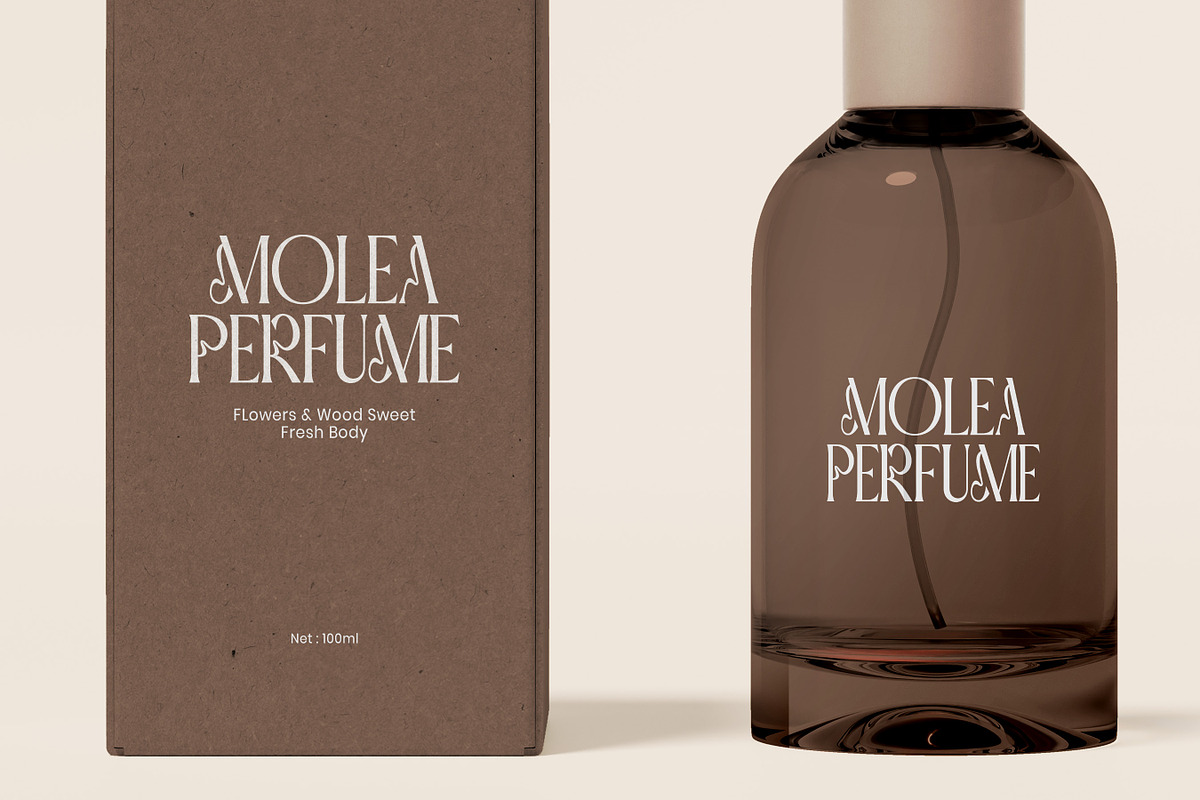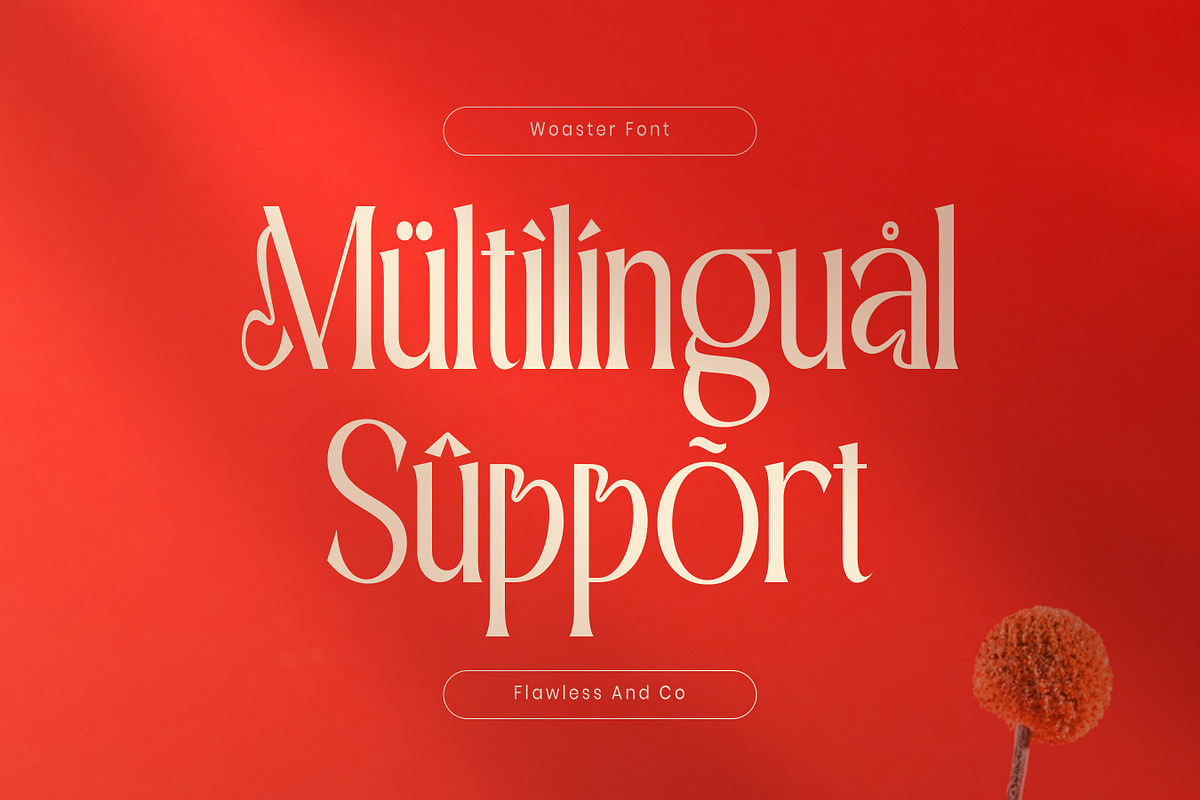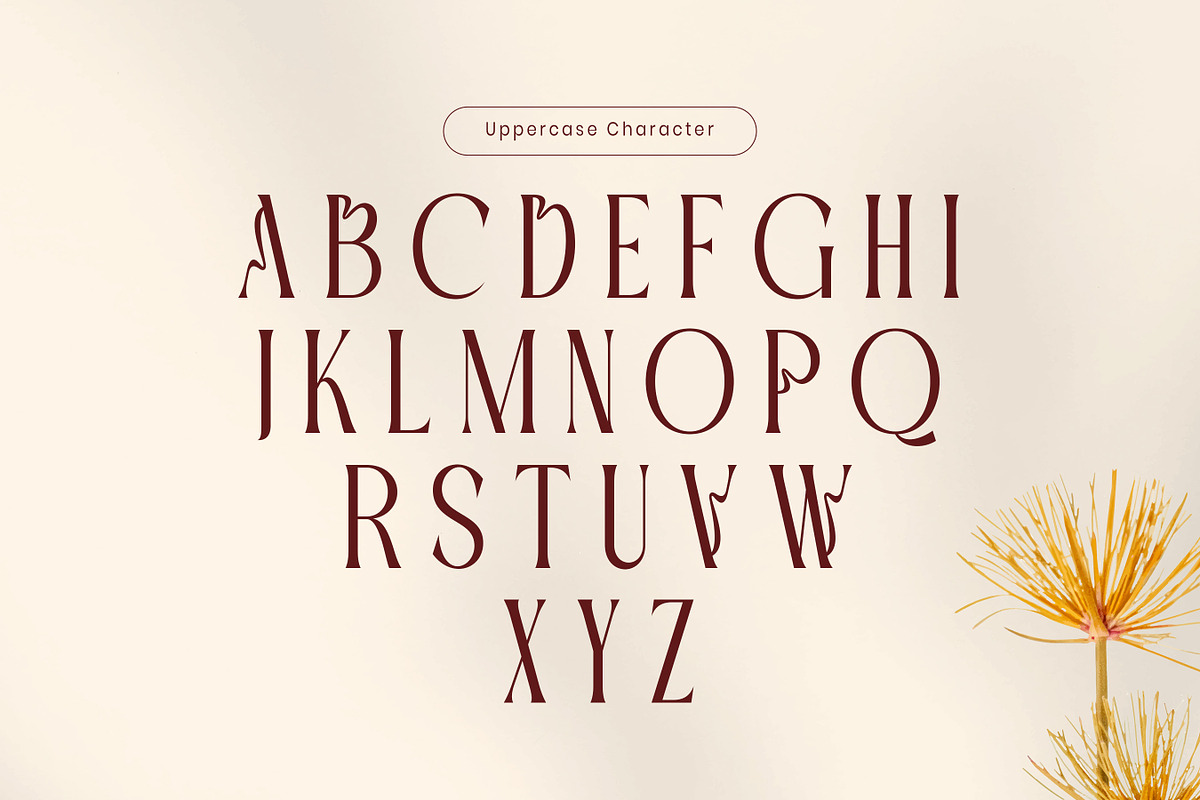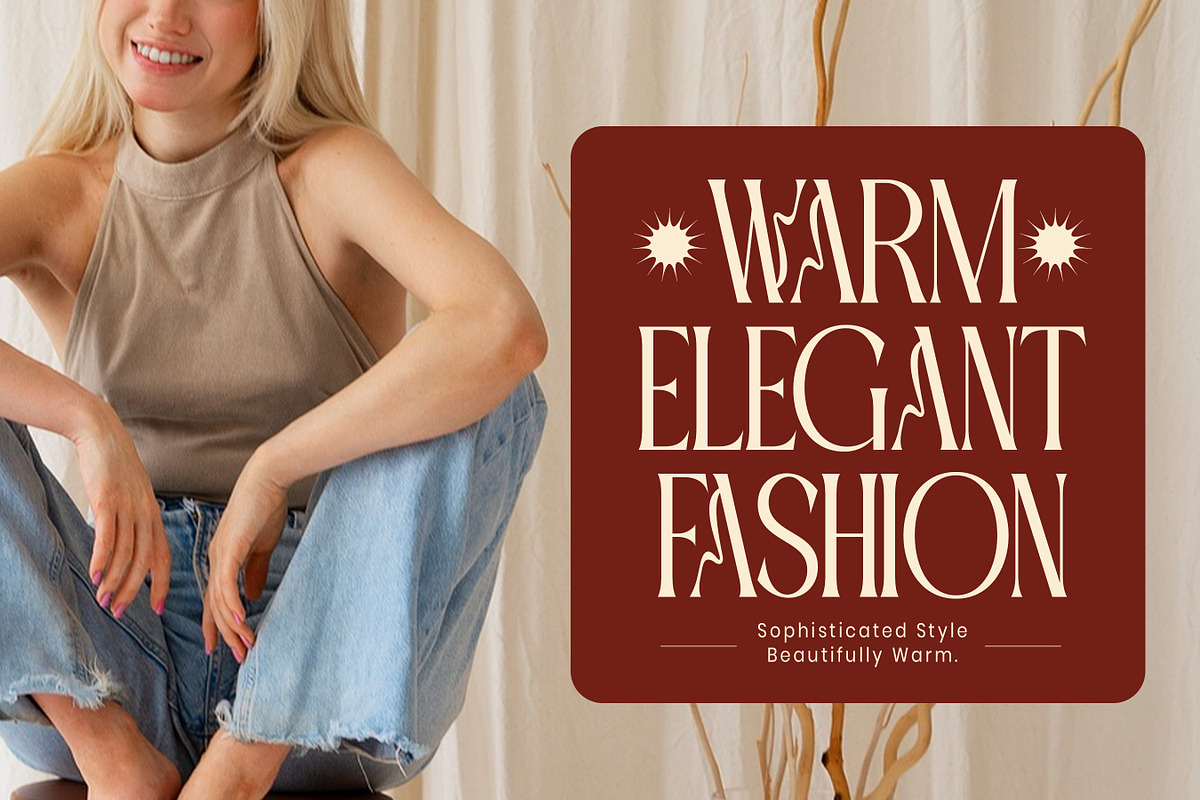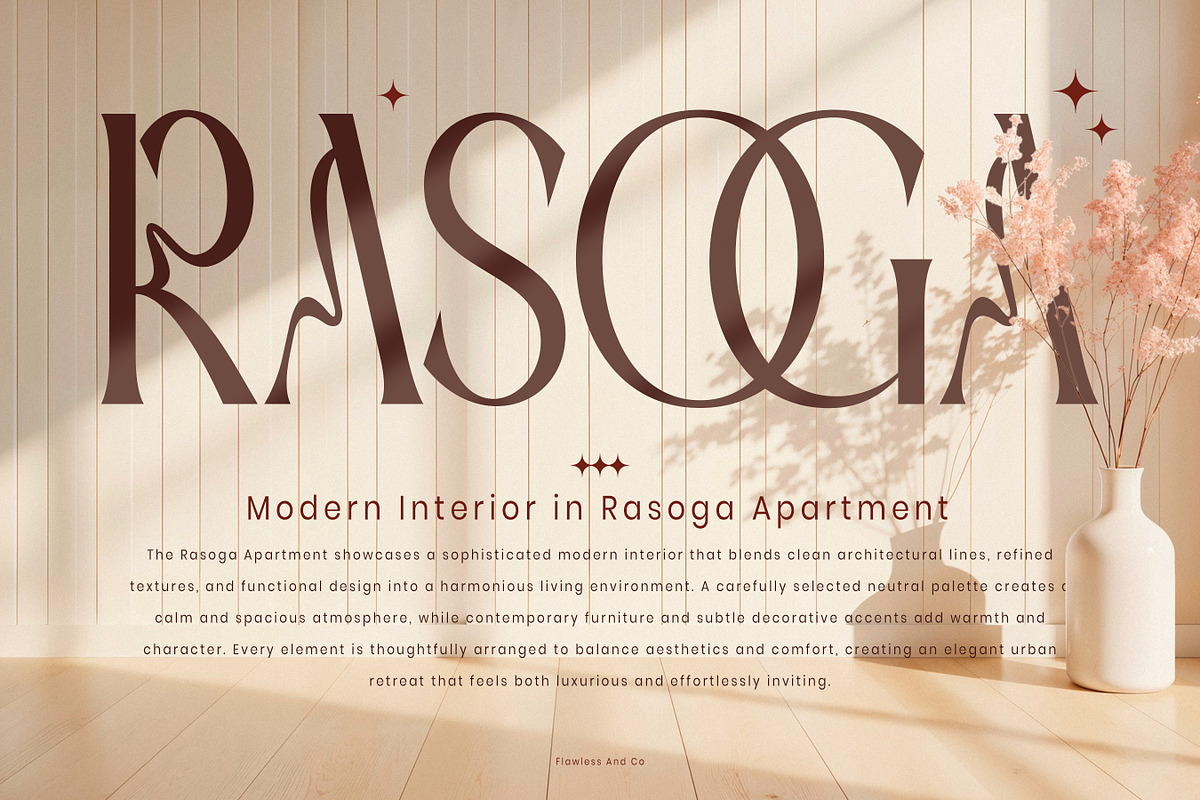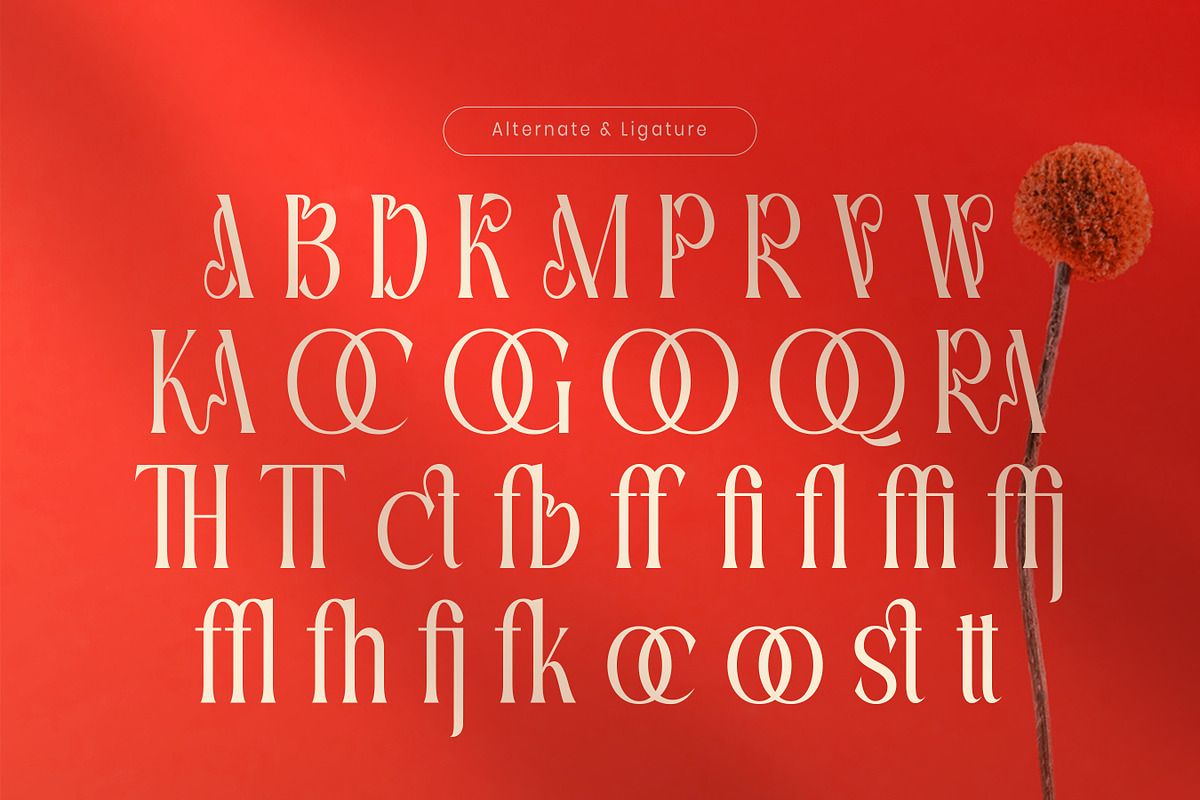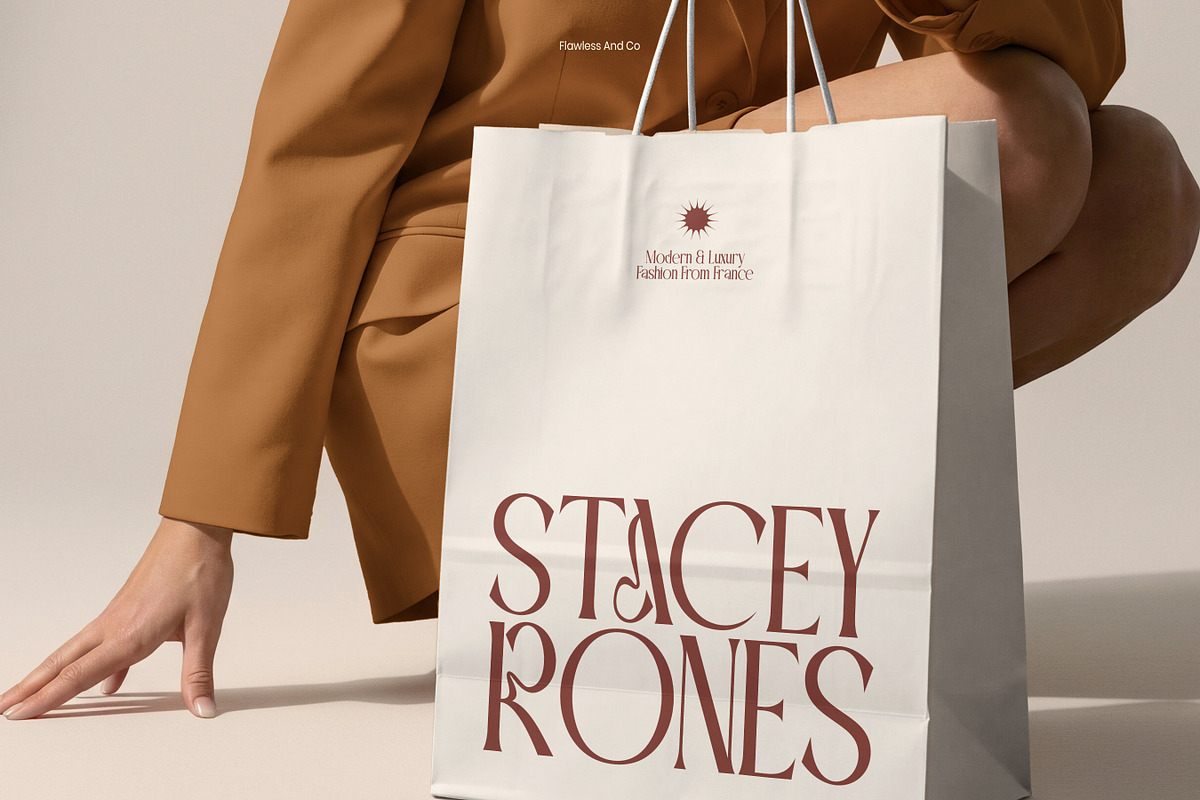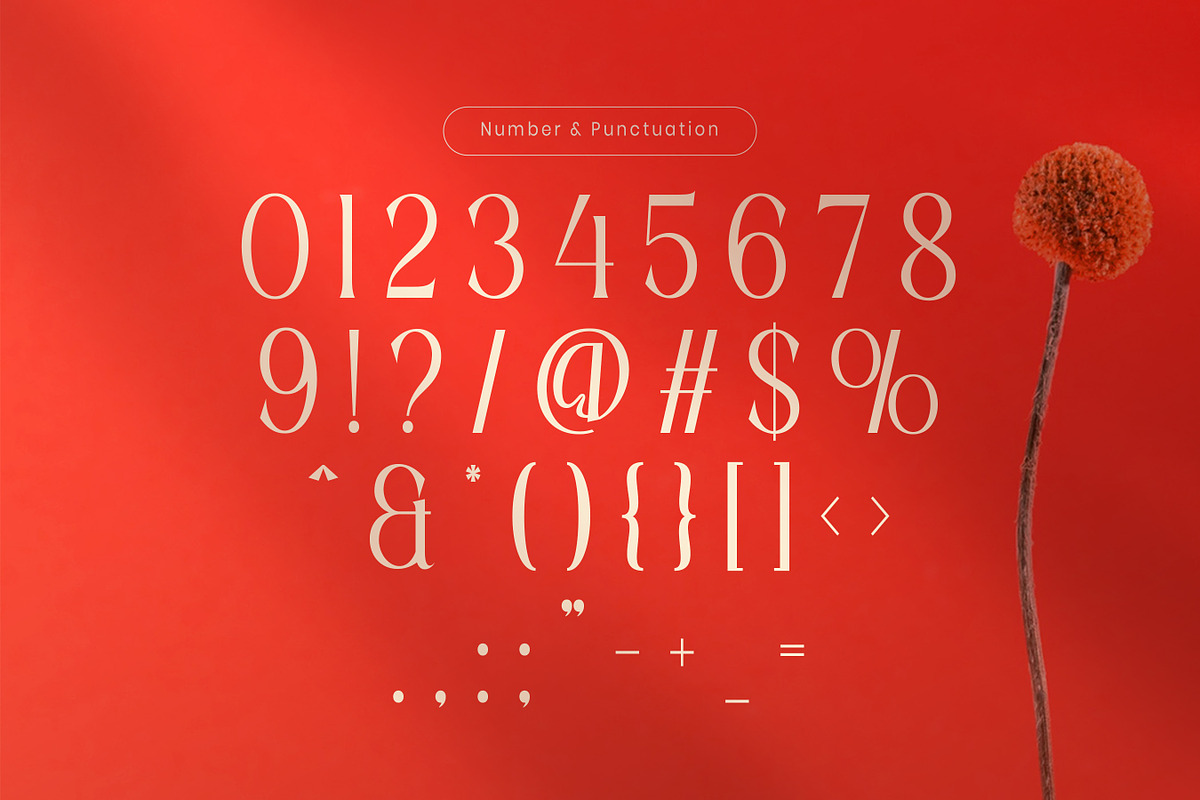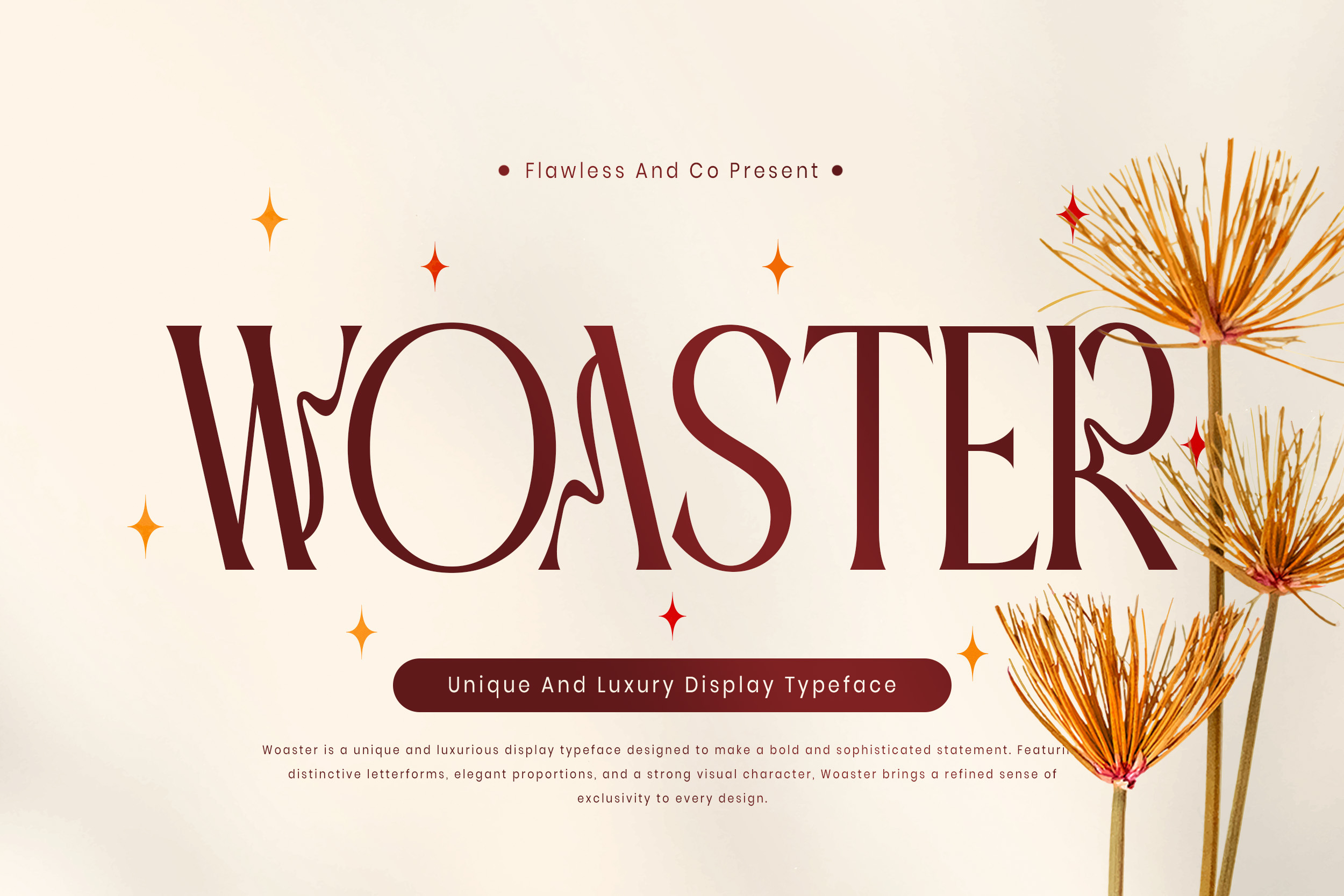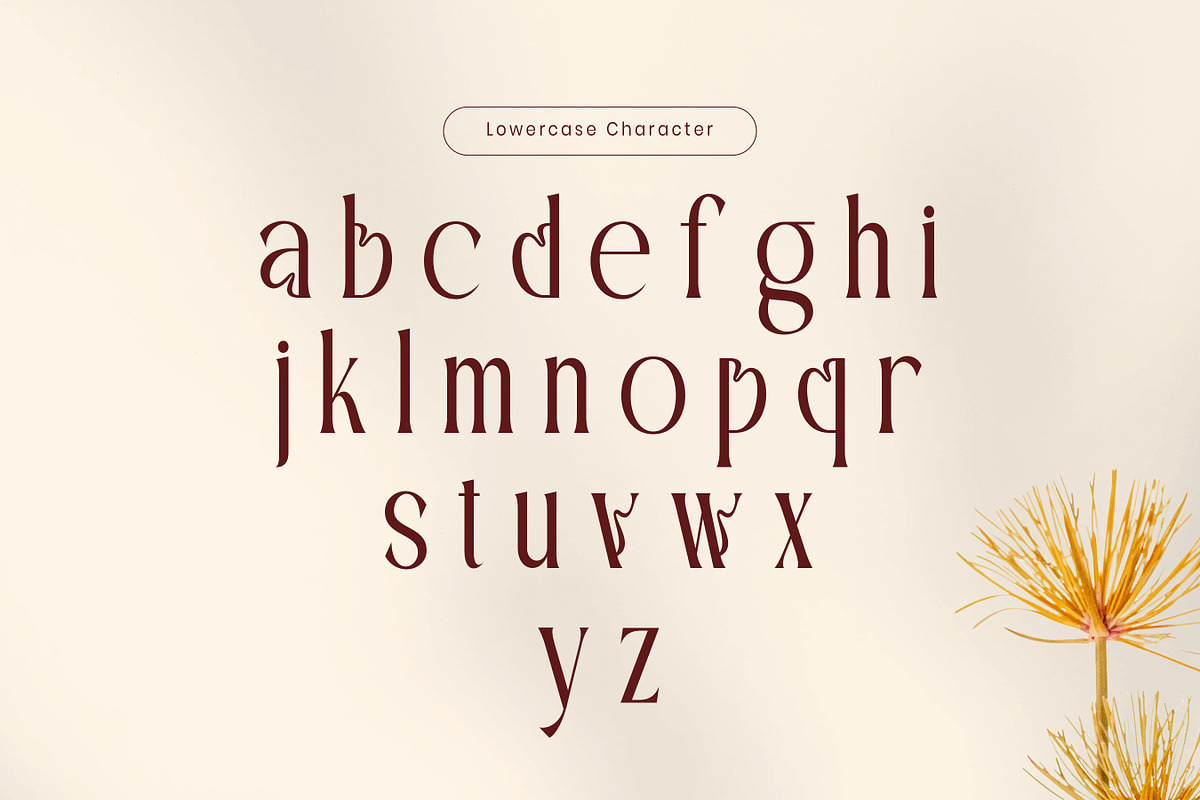
Woaster - Luxury Display Font
Woaster is a luxurious display font that blends sophisticated typography with a distinctive visual character. Designed with elegant proportions, dramatic contrasts, and beautifully refined curves, Woaster creates an instantly premium impression. Its unique letterforms give the typeface a fashionable and artistic quality, making every word feel carefully crafted and visually captivating.
Alternates & Ligatures
Who should use Woaster?
Woaster is perfect for graphic designers, fashion and beauty brands, luxury businesses, creative studios, branding agencies, publishers, and entrepreneurs looking for a sophisticated display typeface with a distinctive character.
Suitable For:
Luxury branding and logo design
Fashion house identities
Beauty and cosmetic branding
Perfume and fragrance packaging
Premium product packaging
Editorial and magazine covers
Boutique and lifestyle branding
Jewelry and accessories
Fashion campaign designs
Wedding stationery and invitations
Social media advertising
Elegant headlines and wordmarks